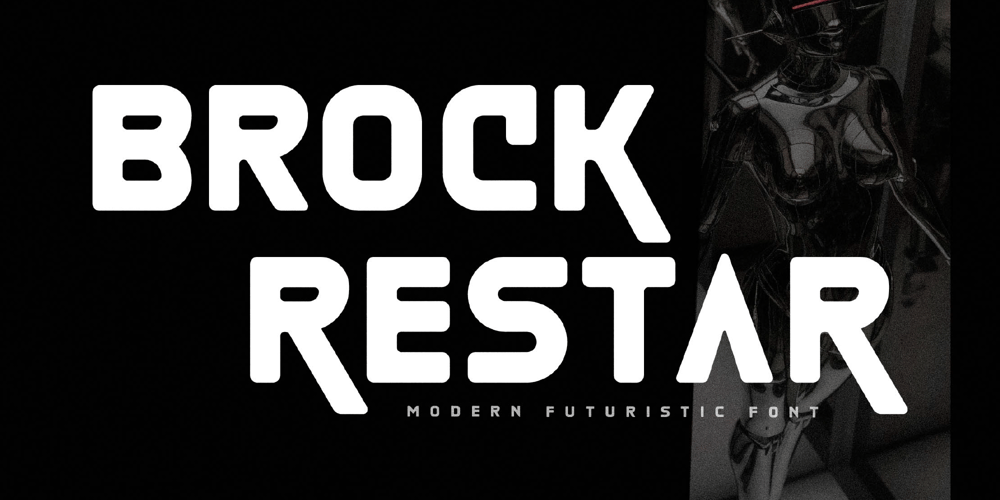
Brock Restar
Brock Restar font
Brock Restar Font Family was designed by Heru Utama Putra and published by Letterena Studios. Brock Restar contains 2 styles and family package options. Brock Restar is a modern and classic display typeface that has its own unique style and fashionable look. This typeface is perfect for an elegant and luxurious logo, book or movie title design, fashion brand, magazine, clothes, lettering, quotes, and so much more.